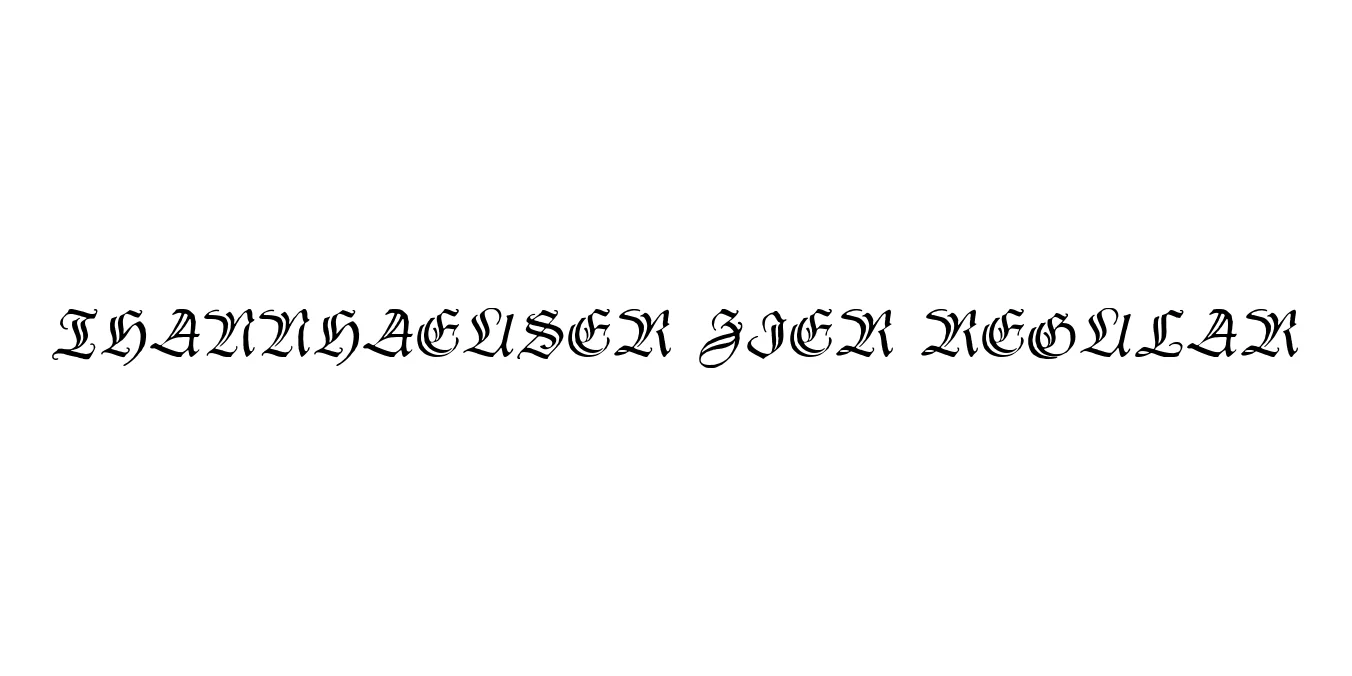
Thannhaeuser Zier Regular
Designed by Herbert Thannhaeuser
Thannhaeuser Zier Regular is an elegant ornamental script typeface designed by the prolific German typographer Herbert Thannhaeuser. Originally created for the Typoart foundry in Dresden during the mid-20th century, this font showcases the intricate beauty of calligraphic flourishes paired with a structured, formal base. Its design reflects the sophisticated aesthetic of the post-war era, blending traditional German lettering influences with a fluid, rhythmic grace that makes every character stand out as a piece of art.
The typeface is characterized by its sweeping swashes and decorative terminals, which provide a sense of luxury and historical significance. It is frequently employed in contexts that require a high degree of sophistication, such as classical music programs, historical reproductions, and luxury branding. Digital digitizations of Thannhaeuser Zier preserve the delicate balance between ink-flow realism and typographic precision, allowing modern designers to evoke a sense of timeless European craftsmanship.
Thannhaeuser Zier Regular Best Uses
Exquisite for formal invitations and high-end wedding stationery.
Perfect for historical fiction, poetry collections, or classical literature titles.
Adds a traditional and authoritative touch to diplomas and official awards.
Ideal for premium brands wanting to convey heritage and sophistication.
Excellent for striking, decorative headers in editorial layouts.